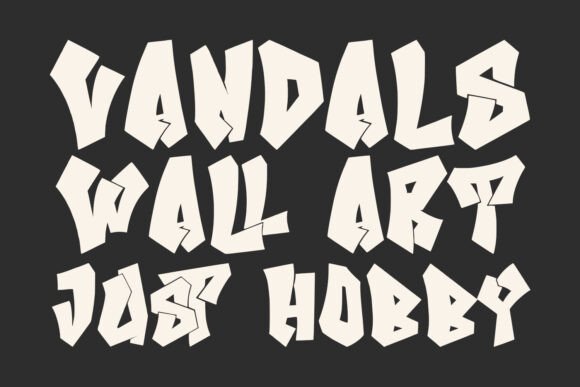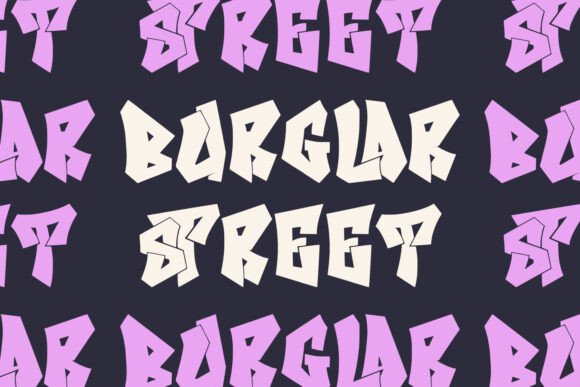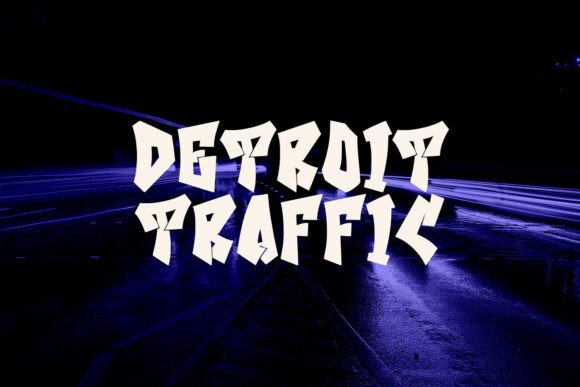
Llestast Font: Bold Graffiti Display Font for Urban Branding & Poster Designs
About the Llestast Font
Get ready to be inspired by Llestast Font, a fresh and dynamic typeface for modern creators. Llestast is a bold and rebellious graffiti display font that packs a punch with its sharp angles, street-style energy, and urban edge. Inspired by hip-hop culture and street art aesthetics, each letter in Llestast feels like a stylized brushstroke from a spray can—raw, expressive, and full of attitude. This font is perfect for music covers, urban apparel, posters, extreme sports branding, and any design that calls for an underground, edgy vibe.
With its explosive character and striking form, Llestast turns your words into a visual shout-out from the streets.
Llestast Font Usage Examples
Llestast Font Example